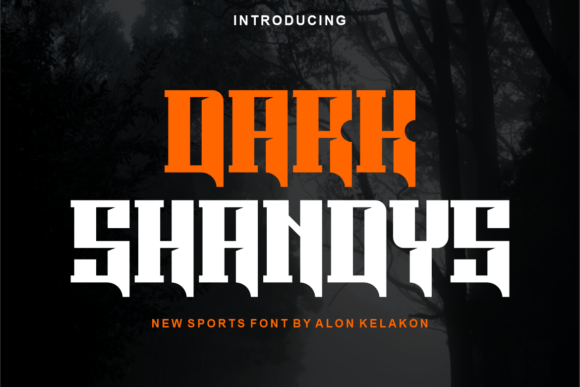
Embark on a typographic journey with Dark Shandys, an exquisite serif font imbued with character and versatility. Crafted by the adept hands of alonkelakon, this font is a visual masterpiece that adds a touch of sophistication to any design. Whether it's for a business letter, a label on a beautifully crafted product, or a captivating movie title, Dark Shandys is sure to leave a lasting impression.
Designed with meticulous attention to detail, Dark Shandys carries an air of elegance and professionalism, making it the perfect choice for those seeking to convey a sense of authority and trustworthiness in their business communications. Its sharp serifs and graceful curves exude a timeless charm that will undoubtedly elevate your designs to new heights.
Beyond its classic appeal, Dark Shandys also possesses a playful side, lending itself effortlessly to creative endeavors like movie scenes, posters, and album covers. Its distinctive character adds a touch of intrigue and individuality, ensuring that your designs stand out from the crowd.